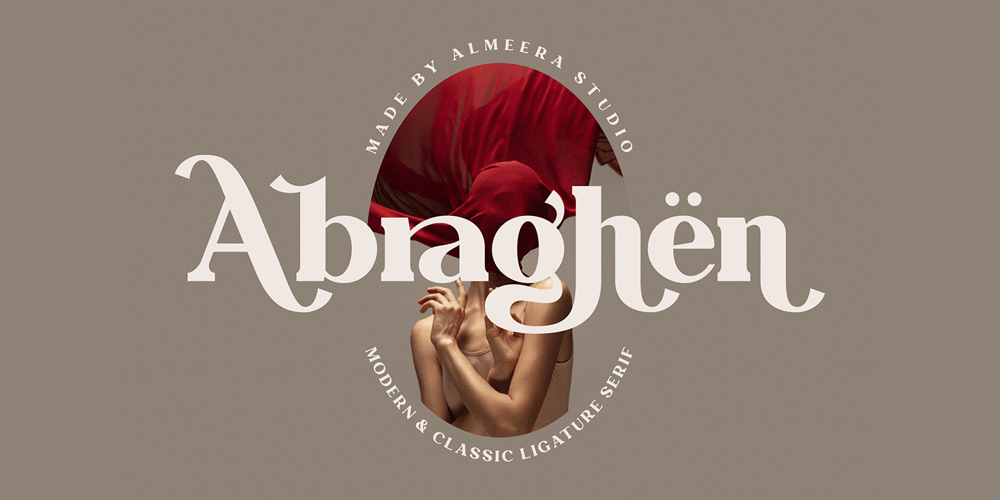
Abraghen Font Family was designed by Rinto Dwi Nugroho and published by Almeera Studio. Abraghen contains 1 styles and family package options. Introducing our newest typeface called Abraghen Serif Font with many Ligatures & Alternates . can make your lettering / logotype become more interesting. The clean and neat of a serif combined with the alternates & ligatures makes this font very attractive.This font perfectly made to be applied especially in logo, and the other various formal forms such as invitations, labels, logos, magazine headers, books, greeting / wedding cards, Clothing Branding, product packaging, fashion, make up, quotes, stationery, novels,cutting, labels and advertising purpose.Features : uppercase & lowercase numbers and punctuation multilingual ligatures stylistic alternates PUA encoded We highly recommend using a program that supports OpenType features and Glyphs panels like many of Adobe apps and Corel Draw, so you can see and access all Glyph variations.Thanks & Happy Designing !